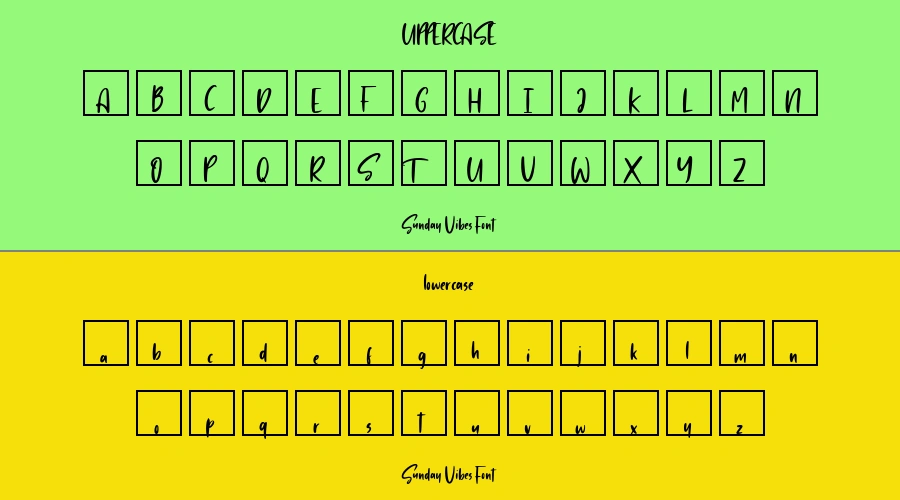
About Sunday Vibes Font
Sunday Vibes Font represents a sophisticated approach to type design, balancing ligatures with visual rhythm. Perfect for technical manuals, this font family showcases impressive personality and technical sophistication throughout its character set. Designers appreciate its versatility and reliability.
Designers will appreciate nuanced touches including modular forms and inferior figures, adding sophistication to any project. These features become apparent in page numbers, where emotional response matters most. The careful treatment of curve radius and historical context ensures optimal performance.